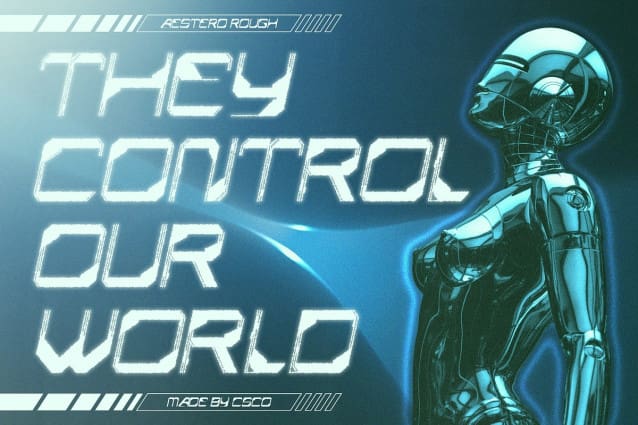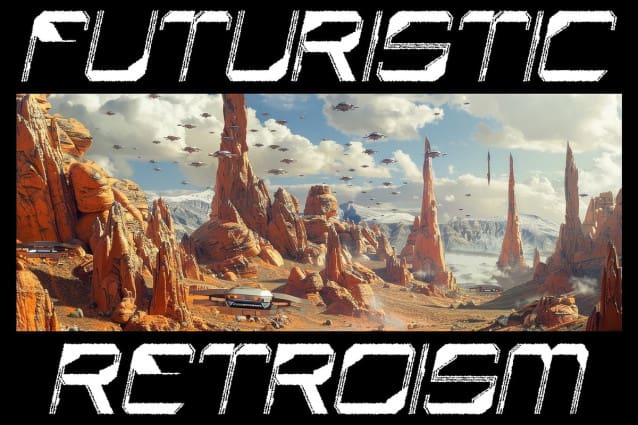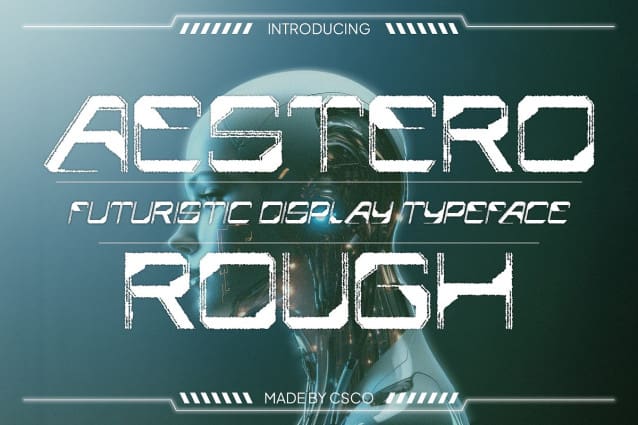
Aestero Rough Font
Aestero Rough Font is a striking display font inspired by Gundam and sci-fi aesthetics, featuring bold, angular shapes that evoke a sense of high-tech adventure. Its design embodies the cutting-edge elements of futuristic visuals, making it ideal for projects that aim to convey innovation and excitement. The angular letterforms capture the essence of science fiction and technology, adding a dynamic, forward-looking vibe to any design.
Rugged Texture with a High-Tech Feel The rough texture of Aestero Rough introduces a rugged, gritty dimension to its otherwise sleek and modern design. This contrast enhances the font’s futuristic appeal, creating a visually compelling look that stands out in various contexts. The blend of smooth, angular shapes with a textured finish ensures that the font maintains its high-energy and adventurous character.
Perfect for Dynamic and Tech-Driven Designs Ideal for dynamic branding, sci-fi posters, and tech-related graphics, Aestero Rough brings a unique edge to projects requiring a futuristic and attention-grabbing appearance. Its bold design and rough texture make it well-suited for high-energy applications, from promotional materials to digital media, ensuring that your designs make a powerful impact.